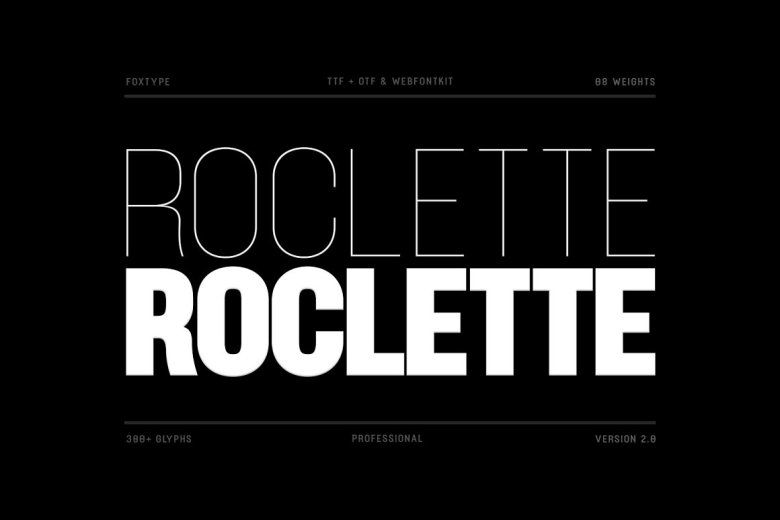
Roclette Font
Roclette Pro is a Brand Elegant Typeface from Roclette powerful font family. It is reliable and has an unapologetic style with restrained letterforms, but also provides contemporary accents. Just like in logos, books or films. BRANDING & HEADLINES, CAPTIONS AND PARAGRAPHS, POSTERS. (why not??) Try Roclette Font! It’s very versatile with the different weights too, so you can play around and try many applications.
It’s designed to be bold without forsaking grace or legibility. It has a clean, minimalist, warmth to it — quirky in some ways but still purposed to be versatile. The Typeface Consists of Eight Weights, Thin, Extra Light, Light, Regular, Medium Semi Bold,Bold and Extra Bold.
Roclette Sans Serif Font